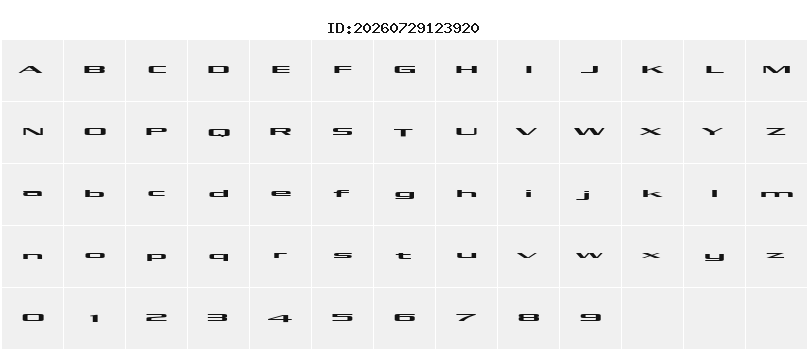
• Font Name: Kubra_Low
• Font Style: Kubra_Low
• Full Font Name: Kubra_Low
• Designer: Ersenak Xtreme
About Kubra_Low.ttf
Kubra_Low.ttf is a modern, elegant sans-serif font designed for ultimate readability and visual harmony. Perfect for branding, headlines, web design, and print materials.